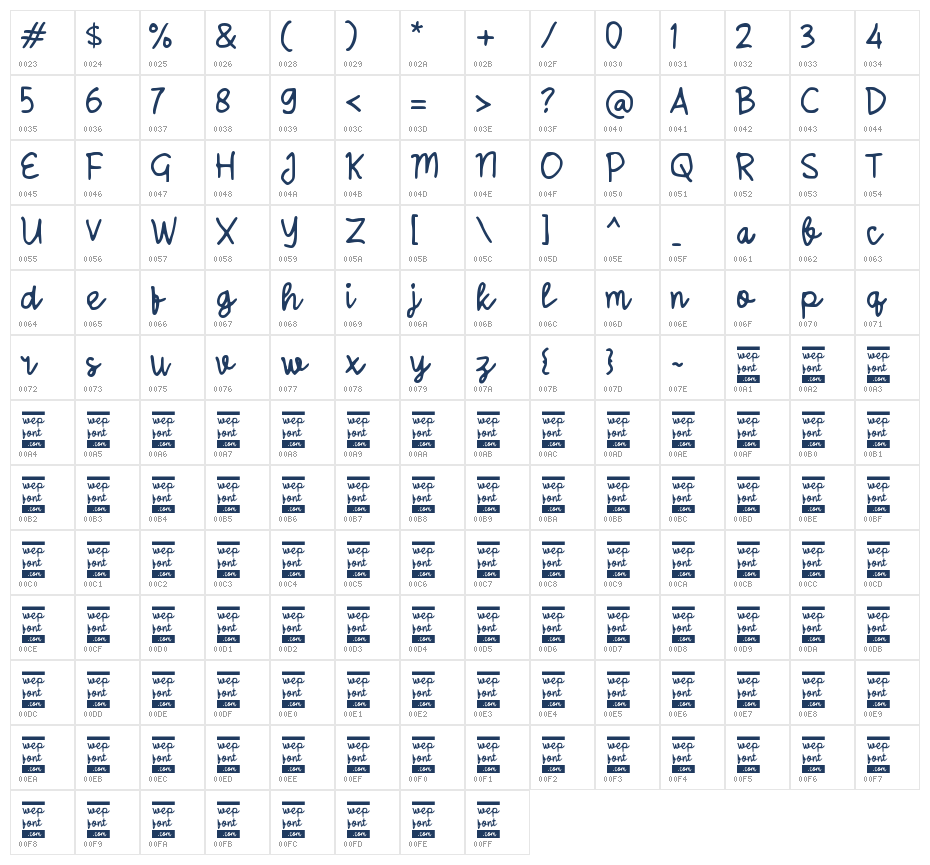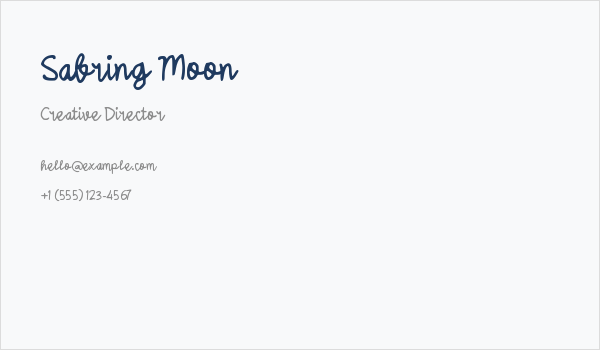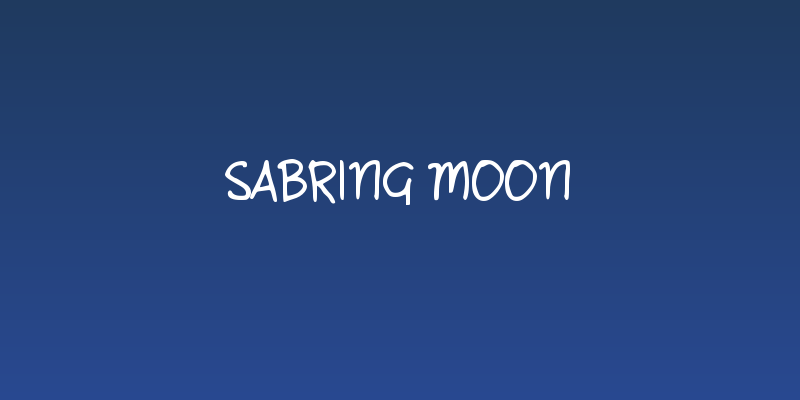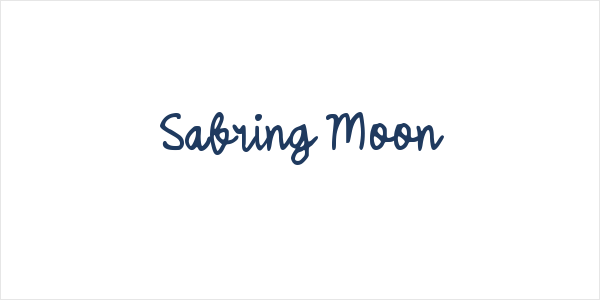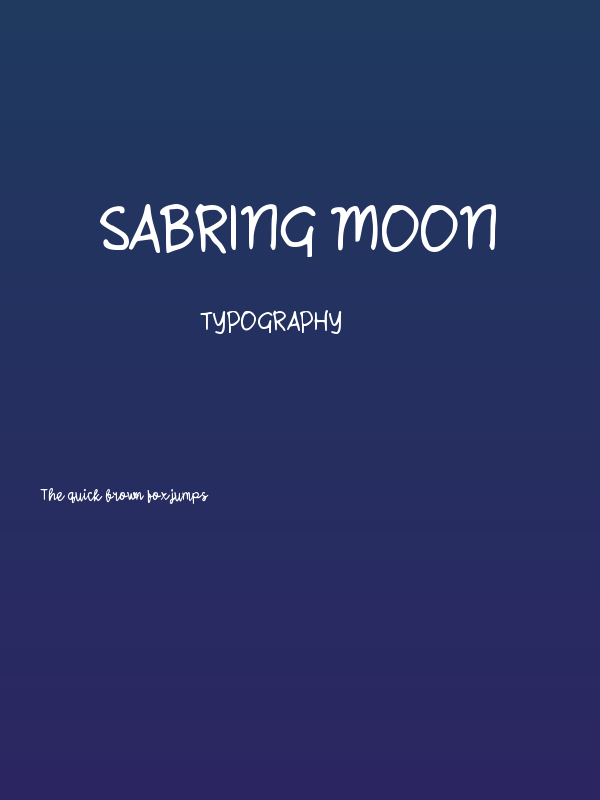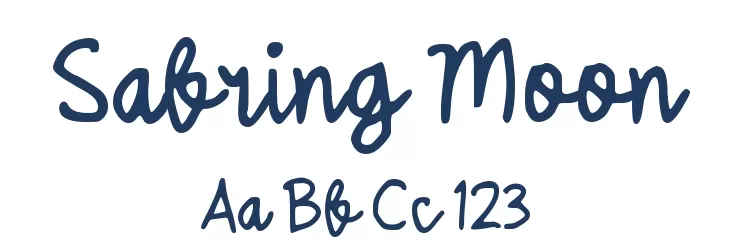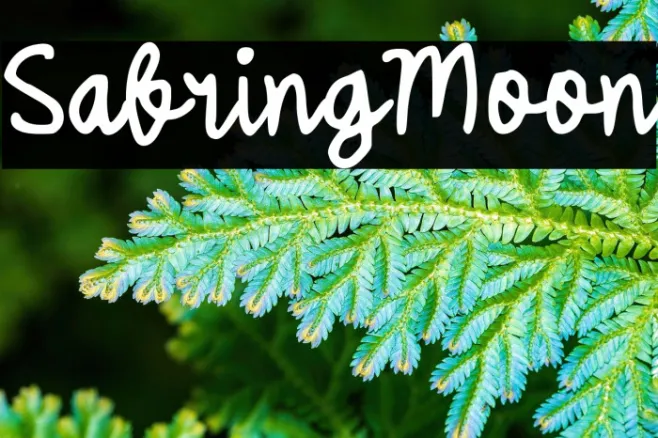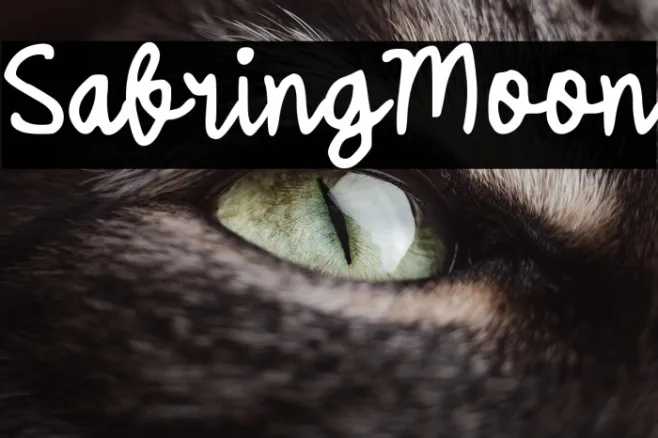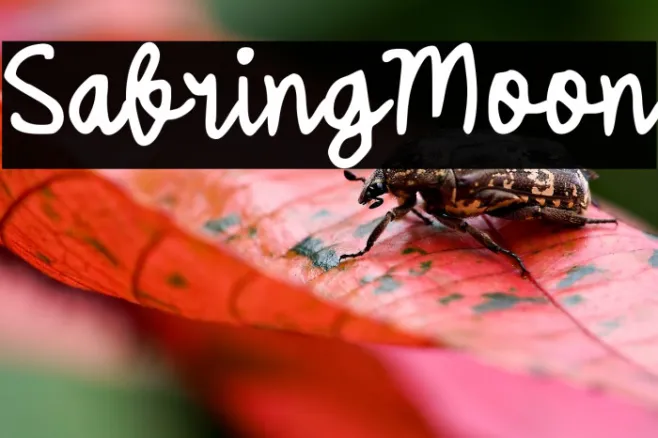
Sabring Moon Font
Sabring Moon Description
A casual, handwritten script font with a playful and informal style, featuring rounded and slightly irregular characters.